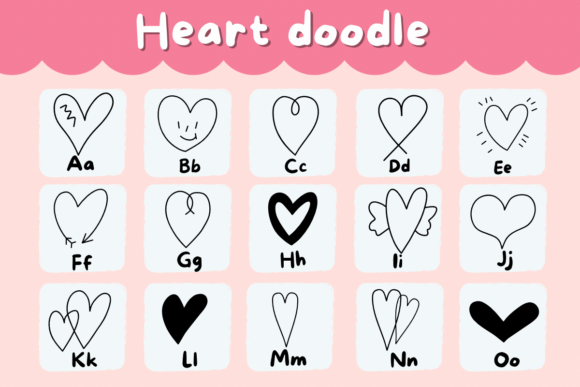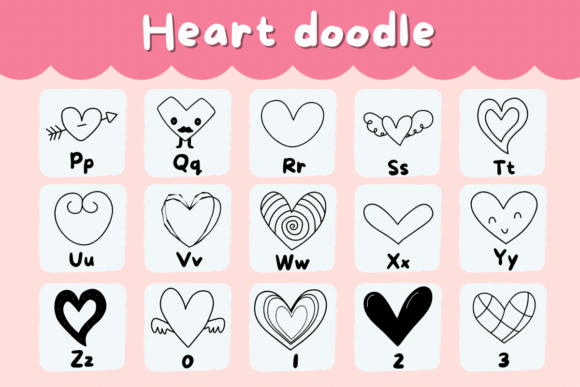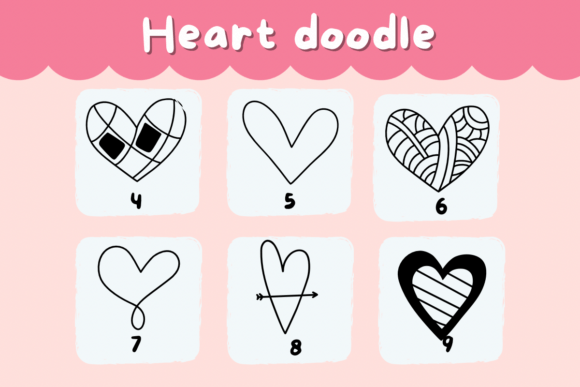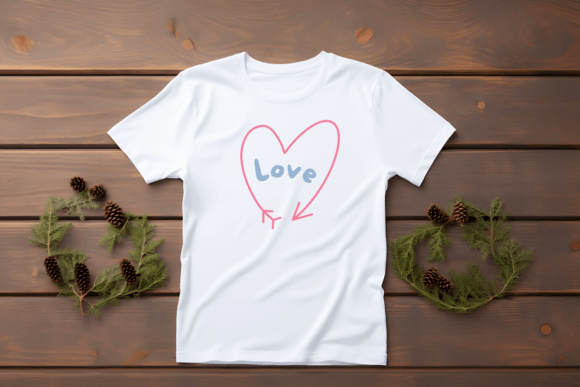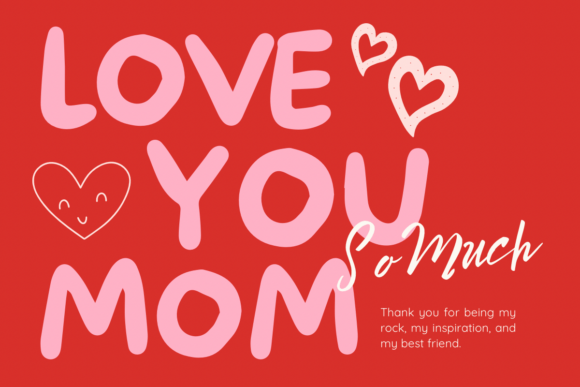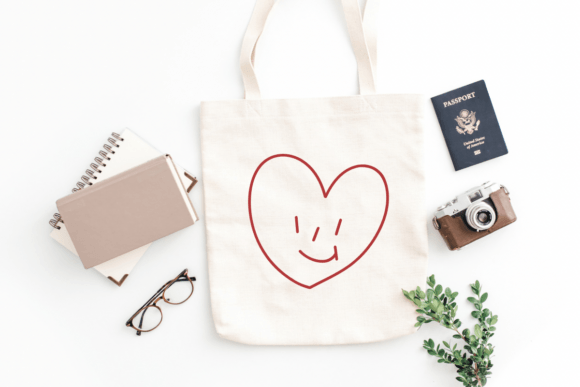
Introducing Heart Doodle Font: The Perfect Addition to Your Romantic Projects
Are you a designer, crafter, or DIY enthusiast looking for a unique and romantic font to enhance your creative projects? Look no further than Heart Doodle Font, a charming dingbats font that is sure to capture the hearts of your audience. In this article, we’ll explore the features and benefits of Heart Doodle Font, and how it can elevate your wedding invitations, crafts, decorations, logos, and other creative endeavors.
What is Heart Doodle Font?
Heart Doodle Font is a specially designed dingbats font that revolves around a romantic theme. Dingbats fonts are a type of font that features symbols, icons, and graphics rather than traditional letters and numbers. Heart Doodle Font takes this concept to the next level with its adorable heart-shaped designs, perfect for adding a touch of love and whimsy to your projects.
Features of Heart Doodle Font
So, what makes Heart Doodle Font so special? Here are some of its key features:
- Romantic theme: As mentioned earlier, Heart Doodle Font has a distinct romantic theme, making it ideal for projects related to love, weddings, and relationships.
- Heart-shaped designs: The font features a wide range of heart-shaped designs, from simple and minimalist to intricate and detailed.
- Dingbats style: Heart Doodle Font is a dingbats font, which means you can use it to add visual interest and personality to your projects.
Benefits of Using Heart Doodle Font
Now that we’ve covered the features of Heart Doodle Font, let’s talk about the benefits of using it in your projects. Here are just a few:
- Add a personal touch: Heart Doodle Font allows you to add a personal touch to your projects, making them more unique and special.
- Save time: With Heart Doodle Font, you can quickly and easily add romantic and whimsical elements to your projects, saving you time and effort.
- Stand out from the crowd: Heart Doodle Font is a one-of-a-kind font that will help your projects stand out from the crowd and grab attention.
- Perfect for wedding and love-related projects: As mentioned earlier, Heart Doodle Font is specifically designed for romantic projects, making it perfect for wedding invitations, anniversary cards, and other love-related projects.
Project Ideas Using Heart Doodle Font
So, what can you create with Heart Doodle Font? The possibilities are endless! Here are some project ideas to get you started:
- Wedding invitations: Add a touch of romance and whimsy to your wedding invitations with Heart Doodle Font.
- DIY crafts: Use Heart Doodle Font to create custom signs, decorations, and other DIY crafts for your home or special events.
- Logos and branding: Heart Doodle Font can be used to create custom logos and branding materials for businesses and individuals in the love and relationship niches.
- Decorations: Add a personal touch to your party decorations, garlands, and other celebrations with Heart Doodle Font.
In conclusion, Heart Doodle Font is a unique and romantic dingbats font that is perfect for designers, crafters, and DIY enthusiasts looking to add a touch of love and whimsy to their projects. With its heart-shaped designs, easy-to-use interface, and romantic theme, Heart Doodle Font is sure to become a favorite in your font collection. So why wait? Download Heart Doodle Font today and start creating beautiful, one-of-a-kind projects that capture the hearts of your audience!